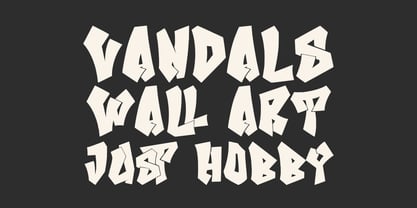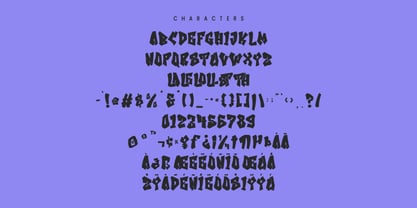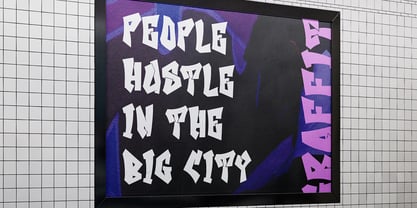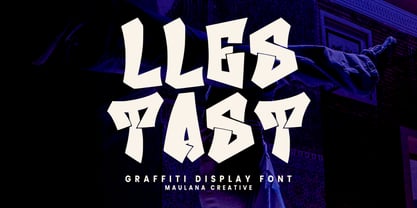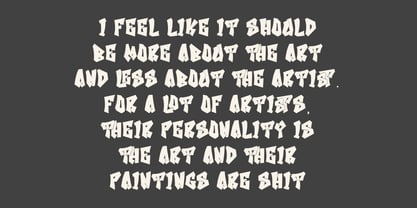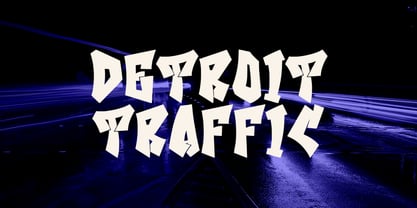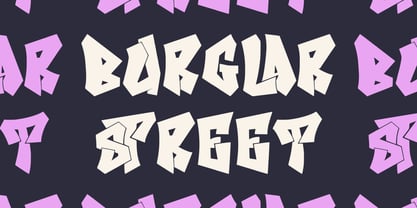
MC Llestast
von Maulana Creative
Die Schriftfamilie MC Llestast wurde von Gilang Maulana entworfen und von Maulana Creative veröffentlicht. MC Llestast enthält 1 Stile. Mehr über diese Familie
Llestast is a graffiti display handwritten font. With bold stroke, fun character with a bit of ligatures. To give you an extra creative work. Llestast font support multilingual more than 100+ language. This font is good for logo design, Social media, Movie Titles, Books Titles, a short text even a long text letter and good for your secondary text font with sans or serif. Make a stunning work with Llestast font.
Designer: Gilang Maulana
Foundry: Maulana Creative